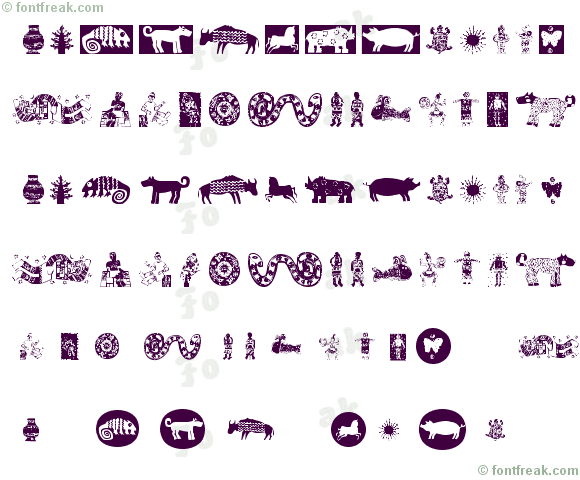
Africain
About Africain
Africain by Manfred Klein is a distinctive decorative font that captures the essence of African artistry through its unique design. This font, categorized as a display typeface, features intricate patterns and forms reminiscent of traditional African motifs. The visual characteristics of the Africain font include a medium stroke weight with varying contrast, which adds depth to each character. The spacing is tight yet balanced, allowing for a cohesive appearance while still providing clarity in various applications. Decorative elements, such as stylized shapes and textures, give the font a rich, cultural feel that is perfect for creative projects.
The Africain font is particularly well-suited for use cases that require a touch of flair and personality. It shines in wedding invitations, where its artistic nature can evoke a sense of celebration. Additionally, it's an excellent choice for movie posters, especially for films that explore themes related to Africa or cultural storytelling. Restaurant menus featuring African cuisine can also benefit from the font's vibrant aesthetic, making the dining experience feel more immersive. Furthermore, graphic designers and content creators looking to add a unique touch to their projects will find this font to be a valuable resource.